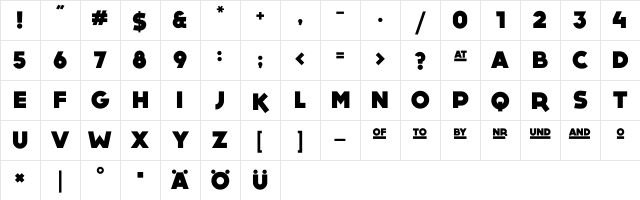
Complete DOCK11 Heavy glyph index. Displaying only characters natively supported by DOCK11 Heavy font.
DOCK11 is a composed and adaptable typeface that performs quietly and consistently across a wide range of design contexts.